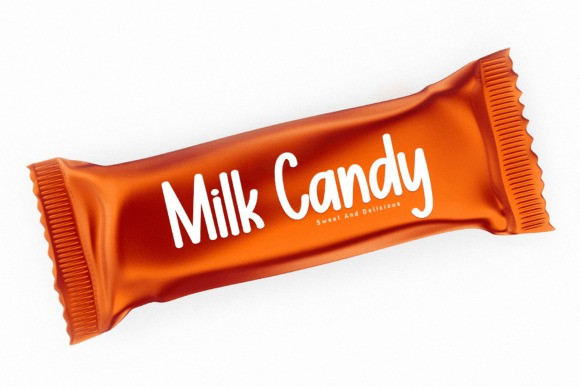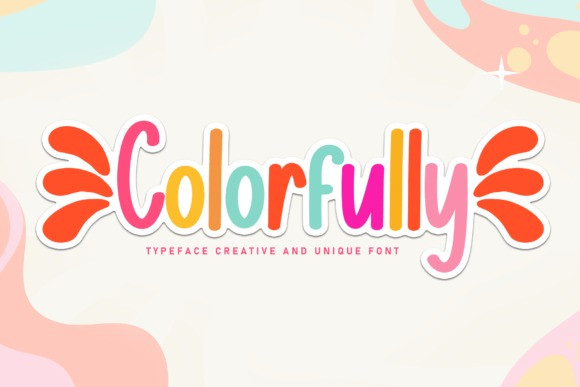
Colorfully Font
Colorfully Font is an adorable handwritten font. No matter the topic, this font will be an incredible asset to your fonts’ library, as it has the potential to elevate any creation.